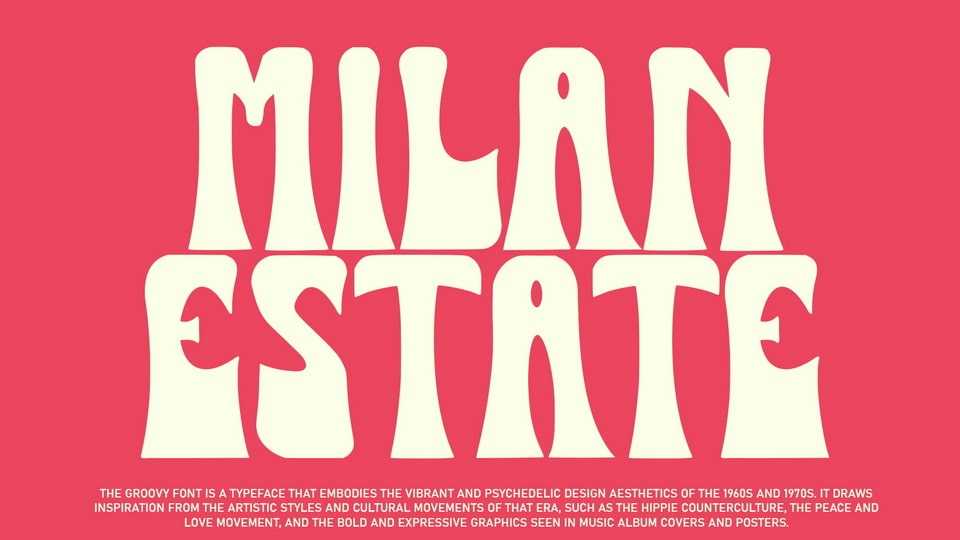
Download Milan Estate font, a charming display typeface with a retro style. With its distinctive handwritten characters, Milan Estate font is perfect for branding projects, logos, media posts, advertisements, product packaging, labels, and any project that needs a vintage touch.
Designer: HATF TYPE